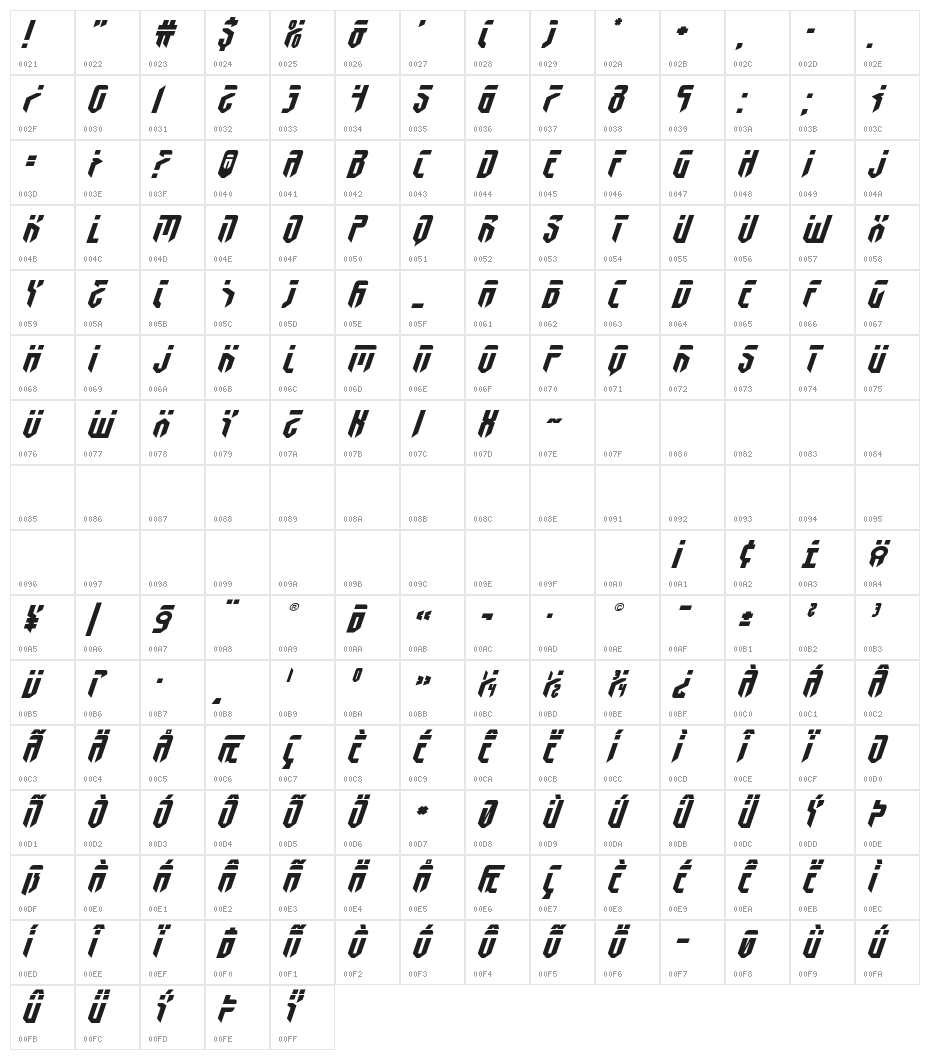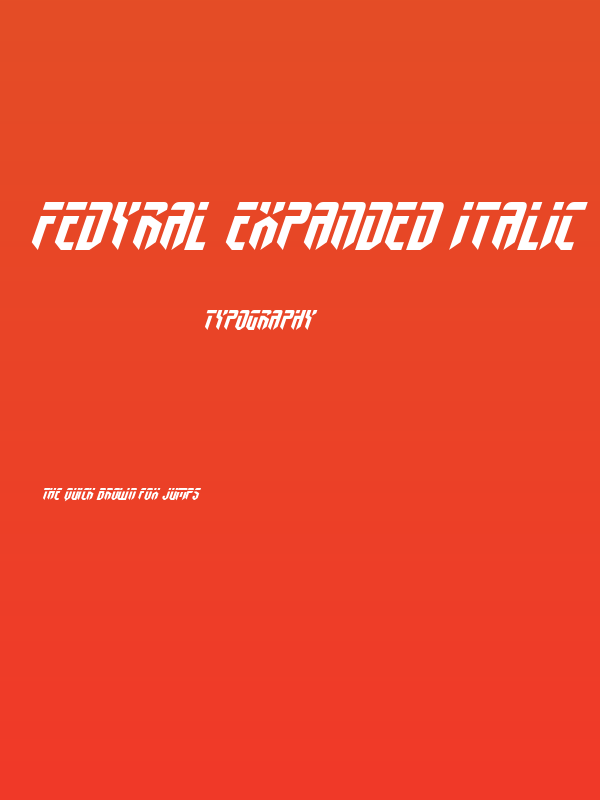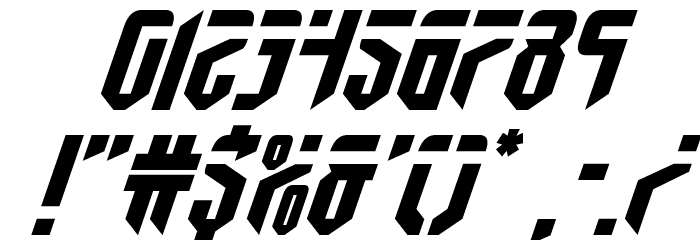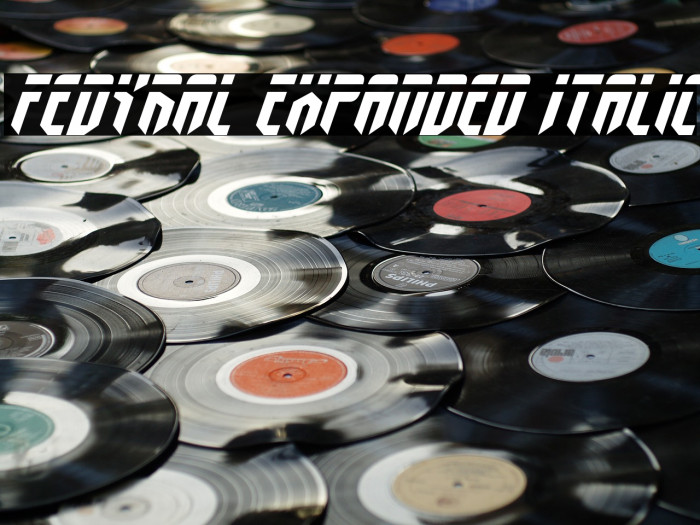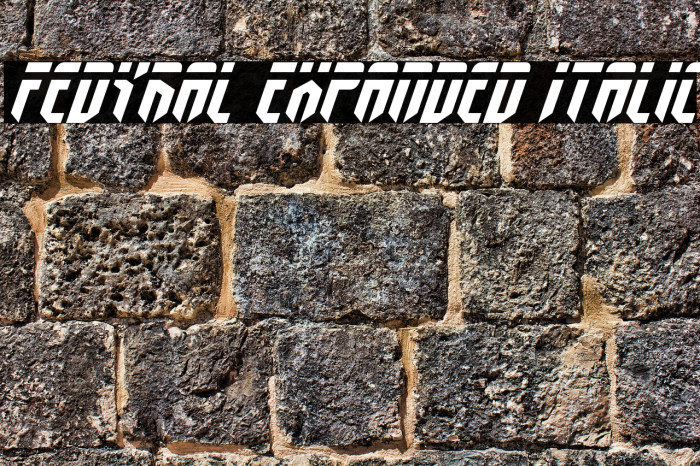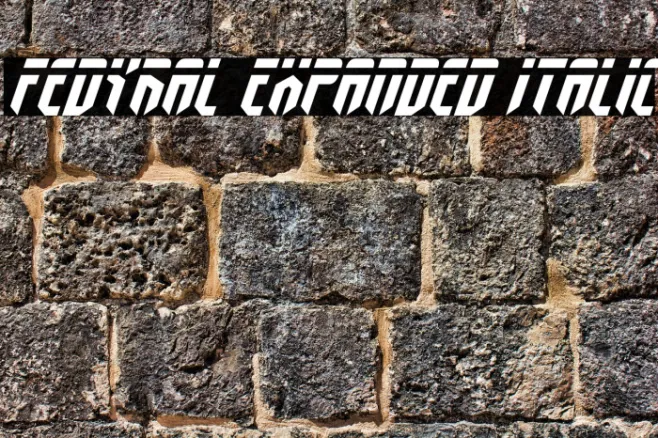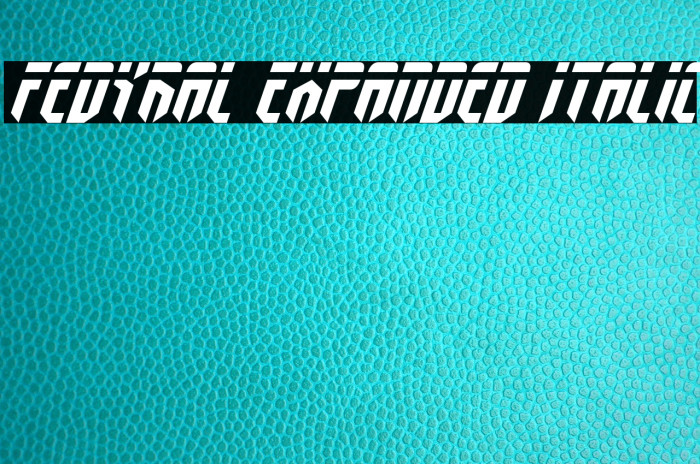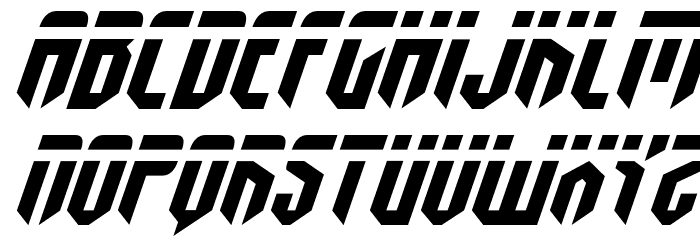
Fedyral Expanded Italic Font
Fedyral Expanded Italic Description
This font features a bold and dynamic design with an italicized slant, giving it a sense of motion and energy. The characters are expanded, providing a wide stance that enhances readability and impact. Each letter is crafted with sharp angles and geometric precision, creating a futuristic and modern aesthetic. The bold weight of the font ensures that it stands out, making it ideal for attention-grabbing headlines or logos. The spacing between characters is tight, contributing to its compact and cohesive appearance. The high contrast in stroke thickness adds to its striking visual appeal, making it suitable for projects that require a strong and assertive typeface.
| Proposed Projects | Ideal for branding, advertising, posters, and any project needing a bold, modern look. |